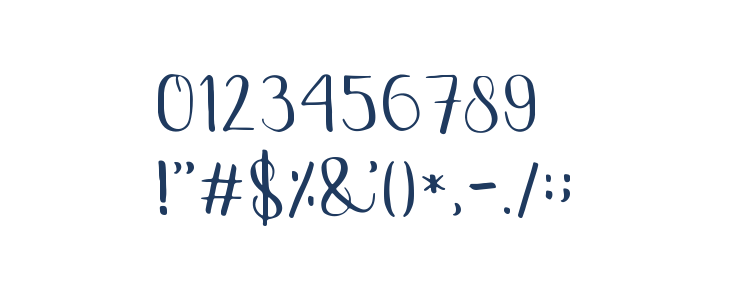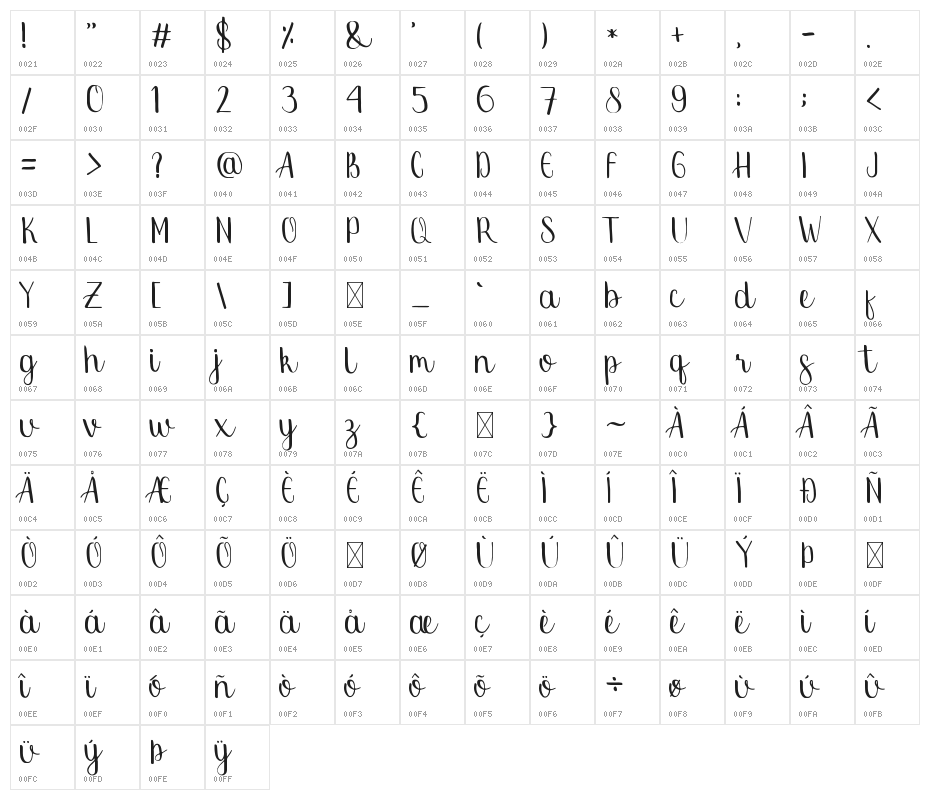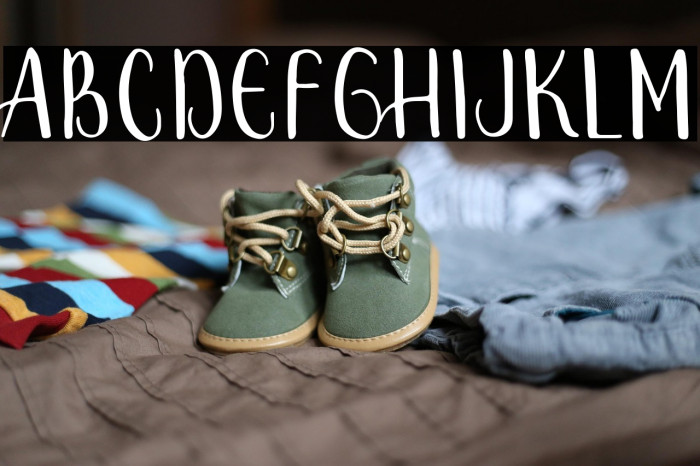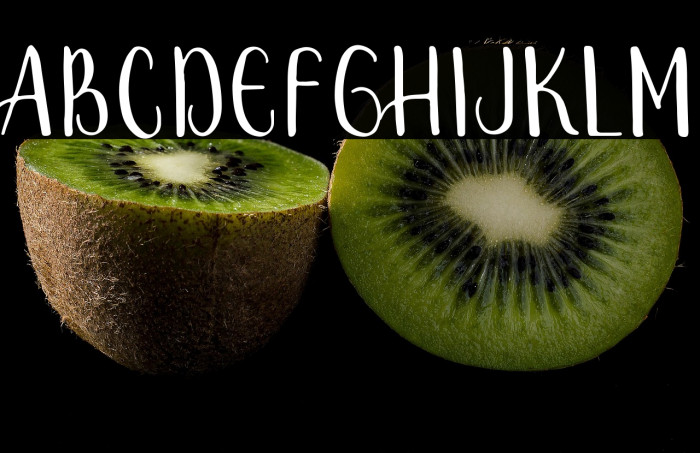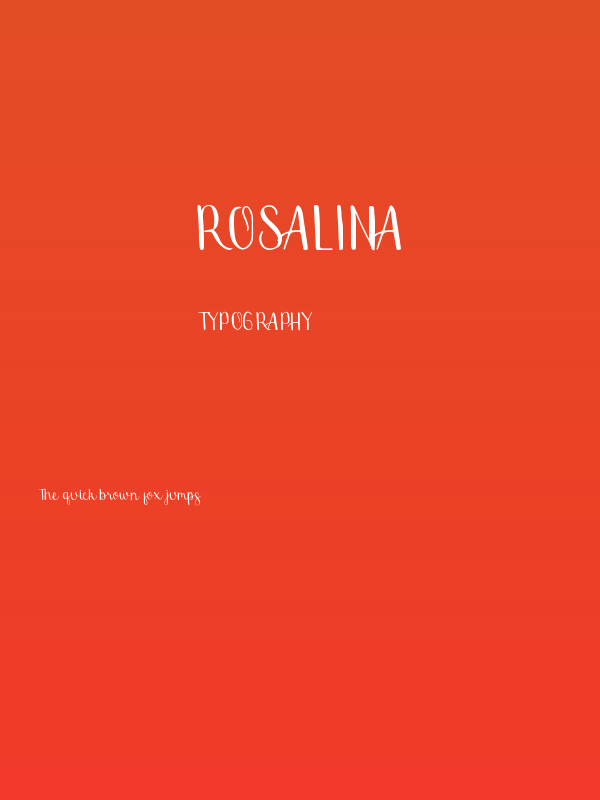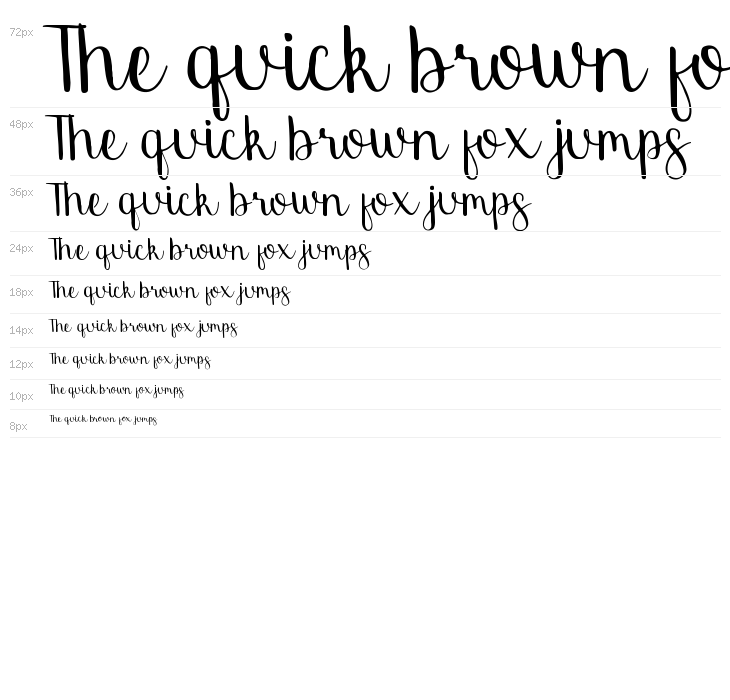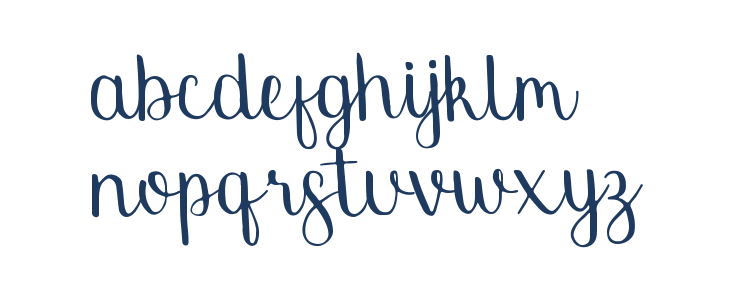
Rosalina Font
Rosalina Description
This font features a playful and whimsical script style, characterized by its fluid, hand-drawn appearance. The uppercase letters are bold and slightly elongated, giving them a distinctive presence. The lowercase letters maintain a consistent flow with elegant loops and curves, adding to the font's charm. Numbers are clear and easy to read, while special characters are creatively integrated, maintaining the overall aesthetic. The font's unique style makes it suitable for projects that require a personal touch or a creative flair.
| Proposed Projects | Ideal for greeting cards, invitations, branding, and creative projects that require a personal touch. |